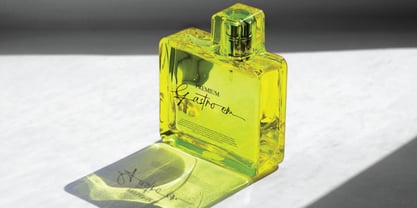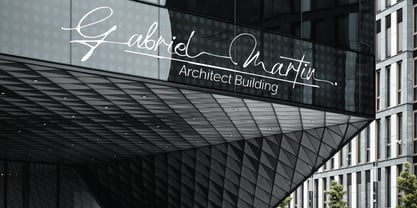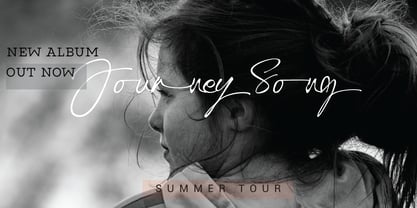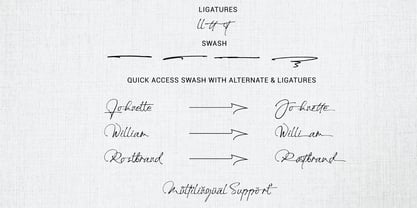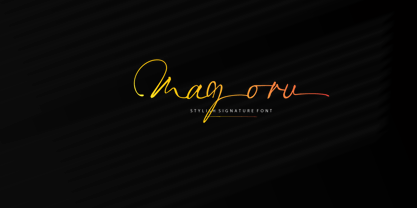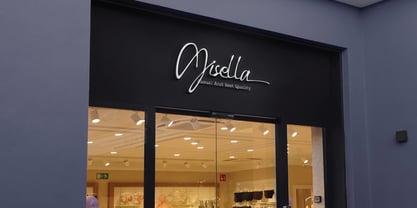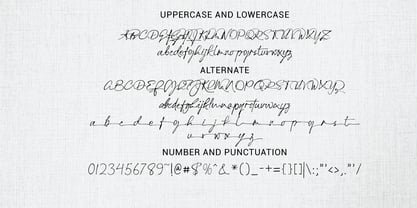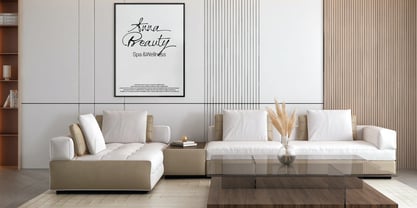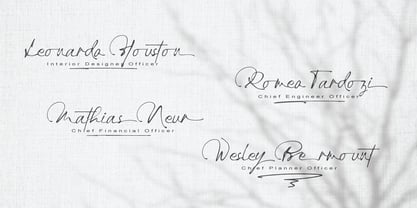
Magoru
by Phonnastudio
The Magoru Font Family was designed by Muhammad Suhery and published by Phonnastudio. Magoru contains 1 styles. More about this family
Magoru is a stylish signature font characterized by a natural and elegant flow. This font conveys a sense of luxury to the user. Its font is ideally suited for a variety of projects, branding logos, invitations, wedding designs, card names, product packaging, product designs, special events, and more. Additionally, this font offers a variety of alternative letters and ligatures.
Designers: Muhammad Suhery
Foundry: Phonnastudio